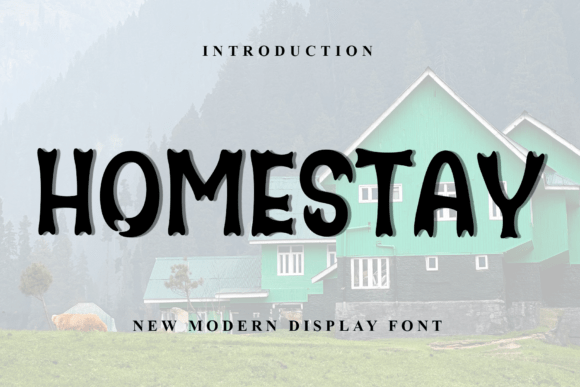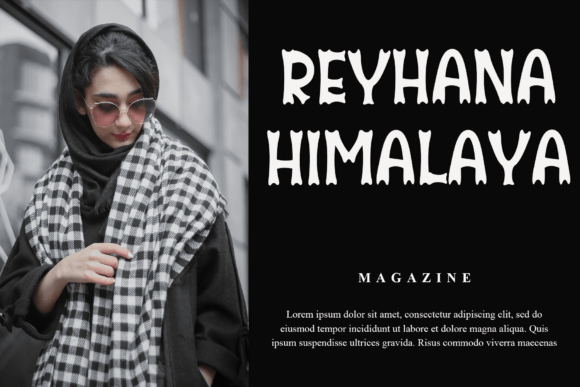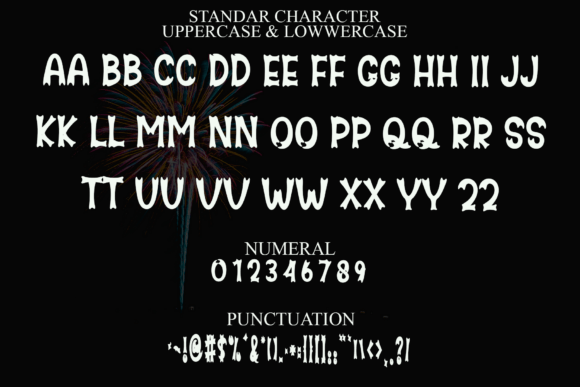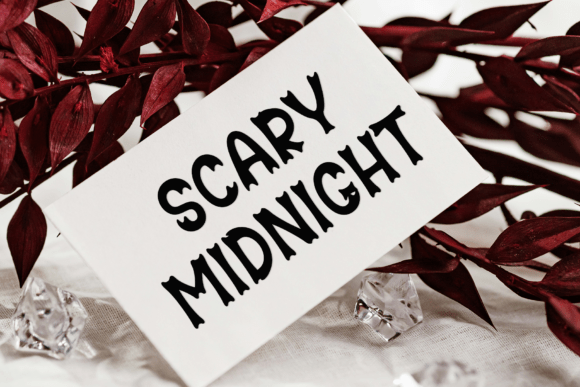
Homestay Font: A Playful Display Font for Social Media & Branding
About the Homestay Font
Presenting Homestay Font, a unique and stylish typeface that will make your work stand out. Homestay is a casual and creative font that exudes warmth and friendliness. Its round, playful strokes create a relaxed and approachable feel, perfect for personal projects, invitations, and social media graphics. The font’s charming, hand-drawn aesthetic adds a fun and unique touch to any design.
Homestay works exceptionally well in headlines, short-form content, and branding applications where a friendly, approachable feel is desired. It’s ideal for projects targeting a younger demographic or emphasizing a casual, handcrafted aesthetic, such as logos for cafes, children’s products, or invitations to informal events. However, its informal nature makes it unsuitable for body text, lengthy paragraphs, or applications requiring high readability, such as website UI or formal documents.
For effective pairings, consider pairing Homestay with a clean sans-serif like Lato for a balanced contrast, or a slightly more geometric sans-serif for a modern twist. A classic serif like Garamond could also work well, adding a touch of sophistication to offset Homestay’s playful charm. Avoid pairing it with other highly decorative or script fonts, which could create visual clutter.
Its core personality is best described as cheerful and approachable, conveying a sense of warmth and approachability. The hand-drawn quality enhances this feeling, making it perfect for designs that aim to communicate a personal and friendly brand identity.
Homestay Font Usage Examples
Homestay Font Example